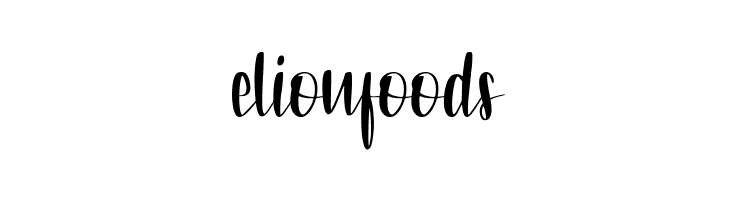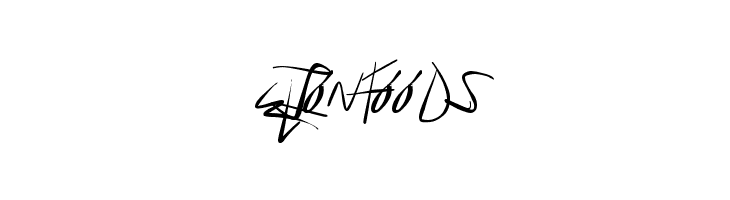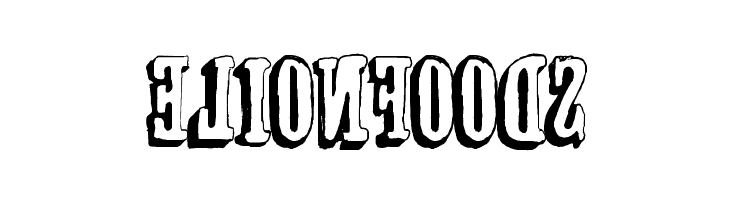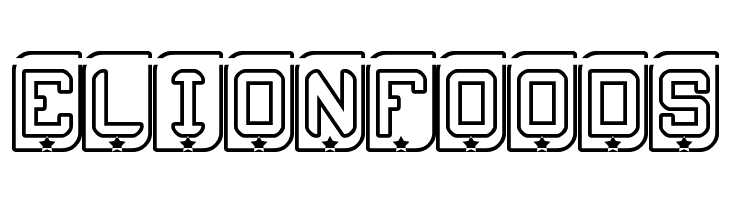
( KellyNugs - Diane Kelly Nuguid - kellynugs.com/ )
A geometric, angular font with a modern and futuristic aesthetic.
A lively and elegant script font with flowing, cursive letterforms.
( Fonts by Ridwanfdl )
A spooky, jagged font perfect for Halloween themes.
( Fonts by Awansenja Type )
A playful, bold handwritten font with thick, rounded strokes.
( Fonts by Southype )
A bold, decorative font with characters enclosed in star-adorned frames.
A bold, distressed font with a chaotic and grunge aesthetic.
A chaotic and expressive handwritten font with overlapping strokes.
A bold, decorative font with a vintage Western style and shadow effects.
( Megan Toy - etsy.com/shop/in2itiveARTWORK )
A playful, hand-drawn font with a youthful, informal style.